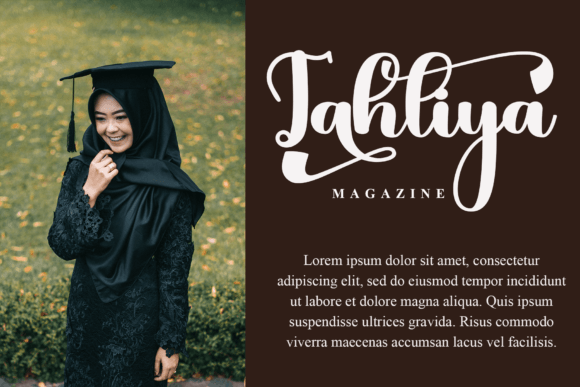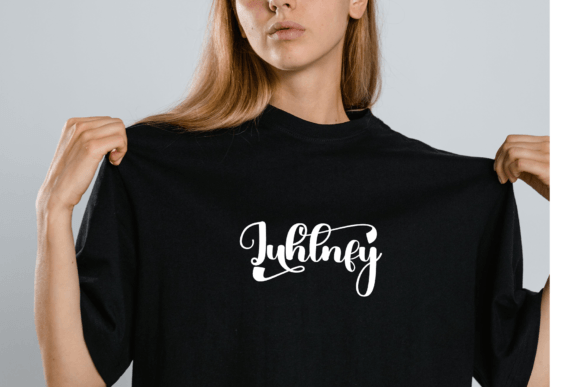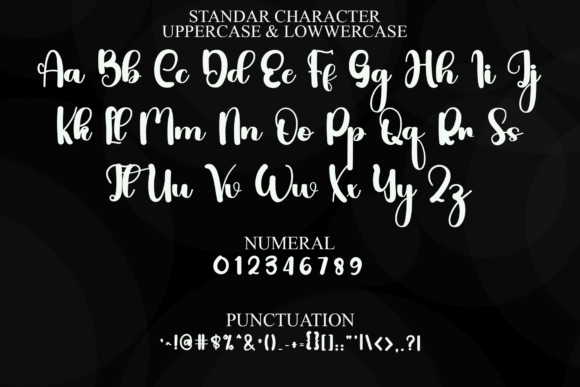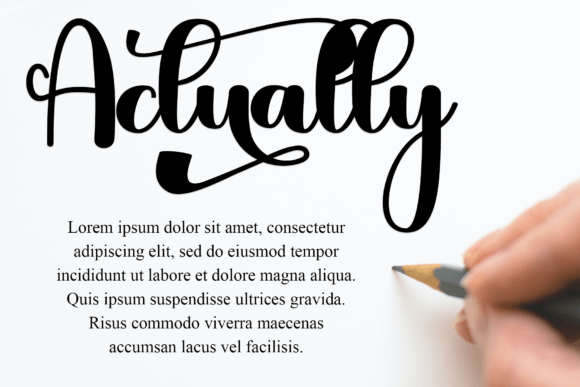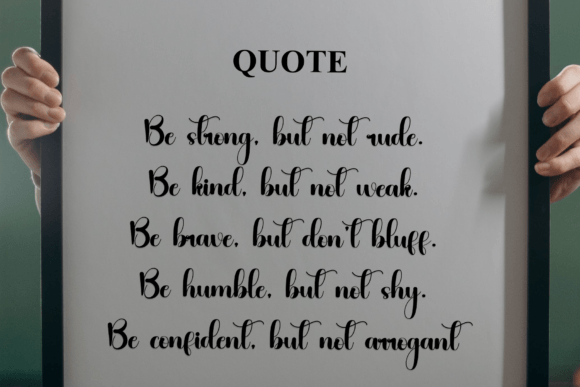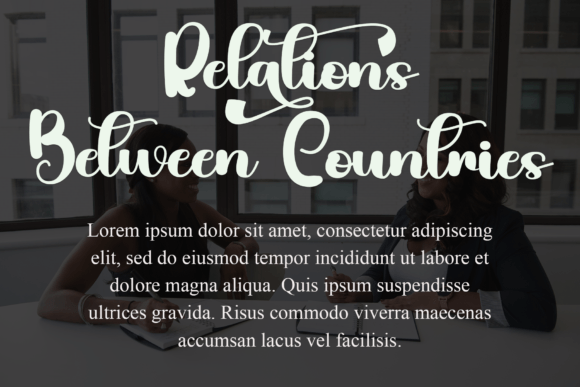
The Magic of Bilateral Font: A Festive Favorite for Your Holiday Designs
I still remember the year I spent hours scouring font websites, searching for the perfect typeface to bring my holiday project to life. My client wanted a design that exuded warmth, joy, and a touch of nostalgia. I tried font after font, but none seemed to capture the essence of the season. That was until I stumbled upon Bilateral Font. With its unique flair and decorative elements, it instantly transported me to a winter wonderland of design possibilities.
What I Love About Bilateral Font
- ✨ Festive and happy vibe that’s perfect for holiday designs
- ✅ Unique decorative elements that add charm to any project
- 💫 PUA coded for easy access to amazing glyphs and ligatures
- 🎉 Highly versatile for various design applications, from greeting cards to gift labels
While Bilateral Font is a stunning addition to any design project, there are a few things to keep in mind:
- ⚠️ Some users might find the font’s decorative elements a bit overpowering for certain design applications
- 🤔 Limited use outside of holiday-themed projects, as its festive vibe might not fit other contexts
The Story Behind Bilateral Font
Bilateral Font was designed with the holiday season in mind. Its creator wanted to craft a typeface that would evoke the warmth and joy of this special time of year. With its unique blend of decorative elements and classic style, Bilateral Font has become a favorite among designers and crafters looking to add a touch of festive flair to their projects.
Q: Is Bilateral Font suitable for body text or long-form content?
A: While Bilateral Font is stunning for headlines and decorative elements, it might not be the best choice for body text or long-form content due to its decorative nature.